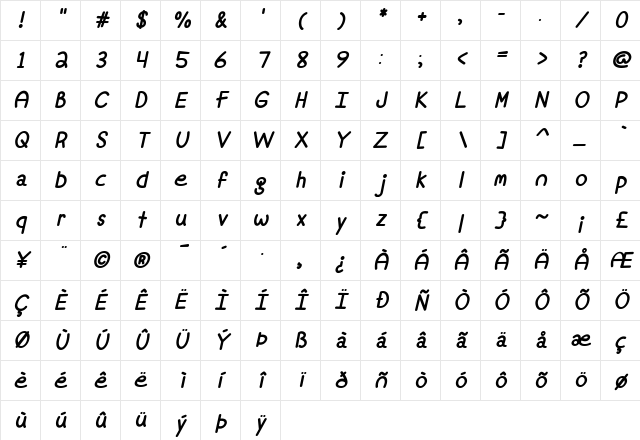
Mf Fine Again is a composed and adaptable typeface that performs quietly and consistently across a wide range of design contexts. The slanted form adds forward momentum and visual energy.
Pro Tip: Use Mf Fine Again for emphasis, pull quotes, and subheadings where its slanted energy can add rhythm to the layout.